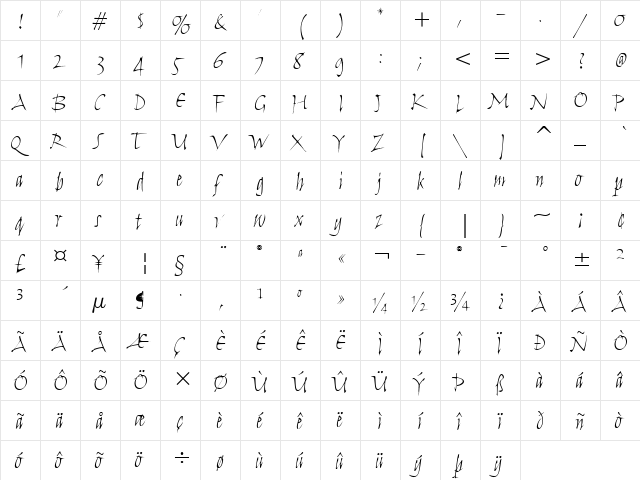
Humana Script ITC Light Font Preview
Design Context for Humana Script ITC Typeface
Humana Script ITC brings a calligraphic fluidity to the page — its connecting strokes and expressive curves give it an unmistakably human quality. The delicate stroke weight brings airiness and refinement to layouts.
Font Pairing: Combine Humana Script ITC with a simple geometric sans for maximum contrast — the tension between flowing curves and clean structure is a classic typographic pairing.
Pro Tip: Pair Humana Script ITC with a clean sans-serif for supporting text. The contrast between fluid script and geometric structure creates an elegant typographic hierarchy.